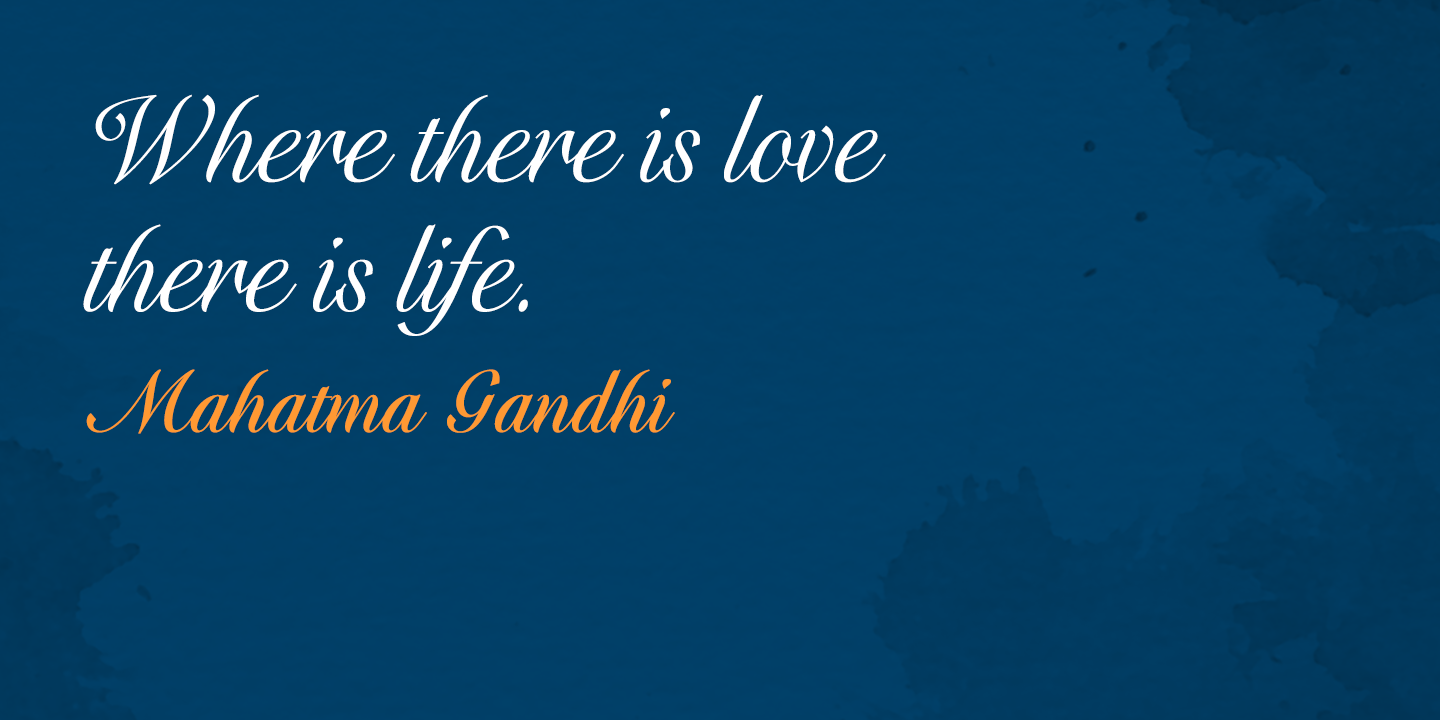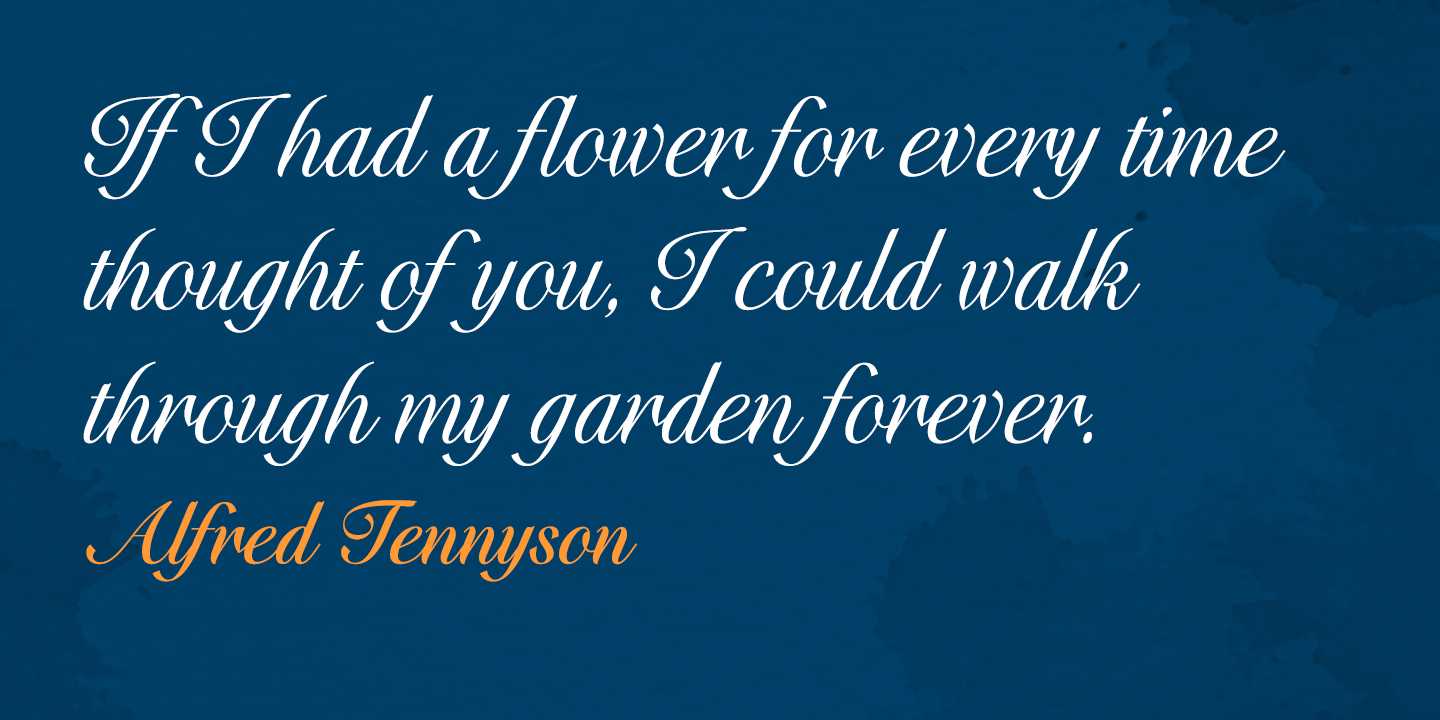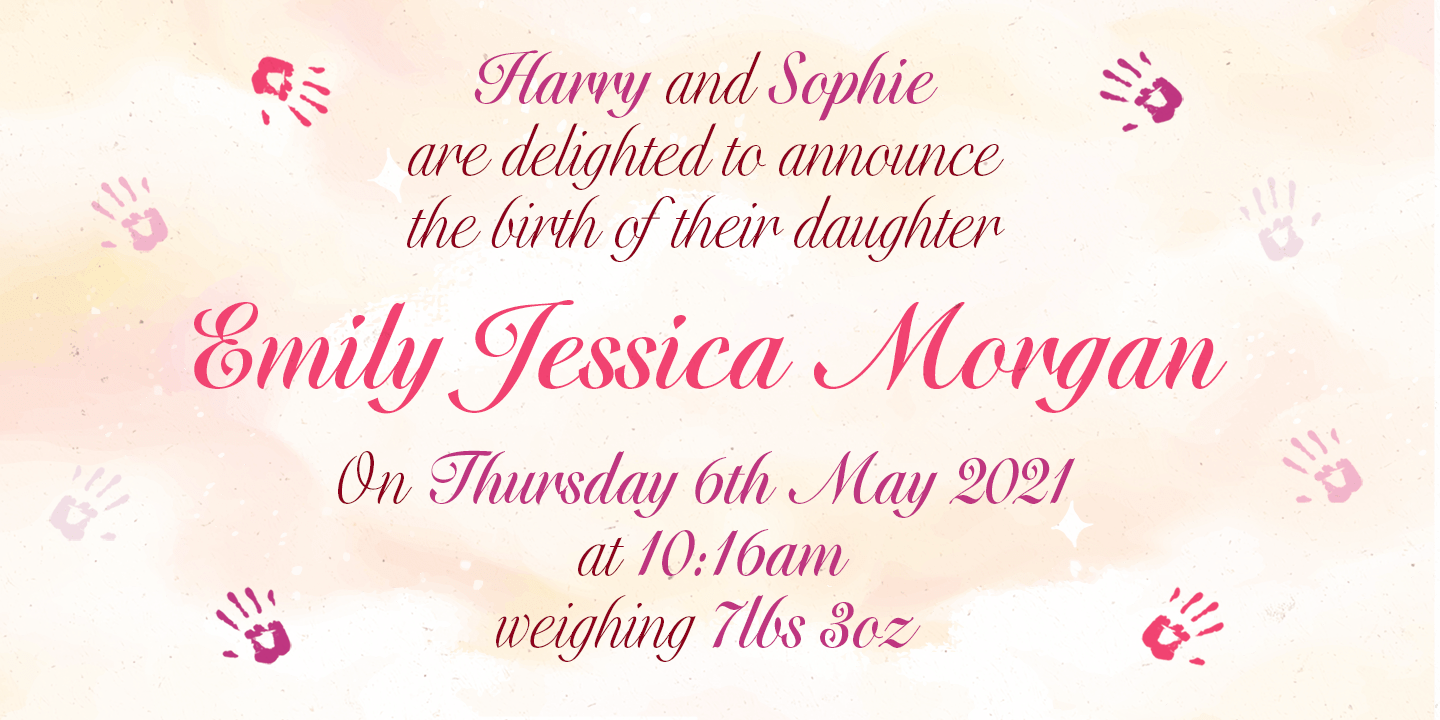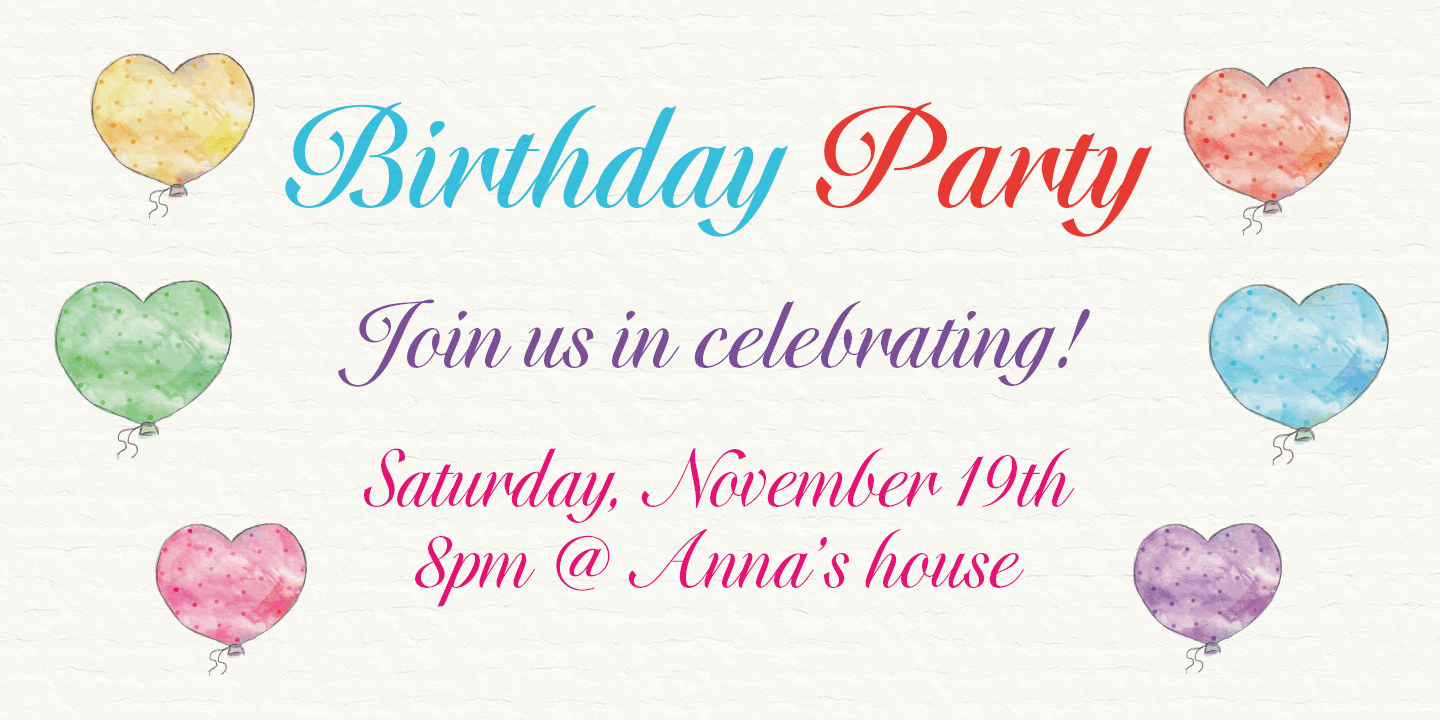
Love at first sight: Evalfey is a script you will find yourself falling for. It has a smooth, sophisticated look to it, but don\’t be fooled by its elegant appearance ? this script is actually very simple and easy to use. The tall x-height, flag like terminals…